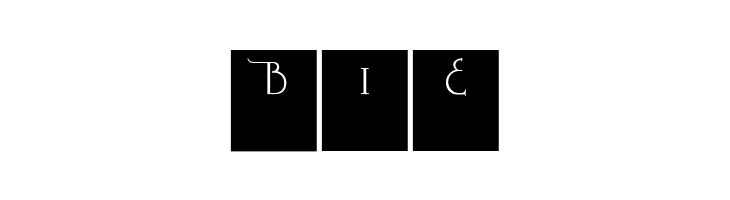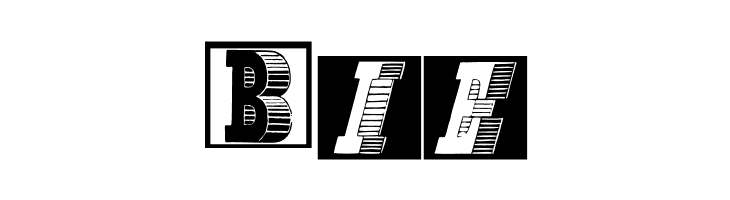
A bold, shadowed font with a three-dimensional, decorative style.
( Fonts by ingoFonts. http://www.ingofonts.de )
A bold, brush-style font with dynamic, handcrafted strokes.
A bold, decorative font with a blackletter style enclosed in squares.
A decorative font with elongated, elegant letterforms enclosed in squares, featuring thin strokes and subtle curves.
( Fonts by Matthias Ribeaucourt )
A classic serif font with high contrast and elegant strokes.